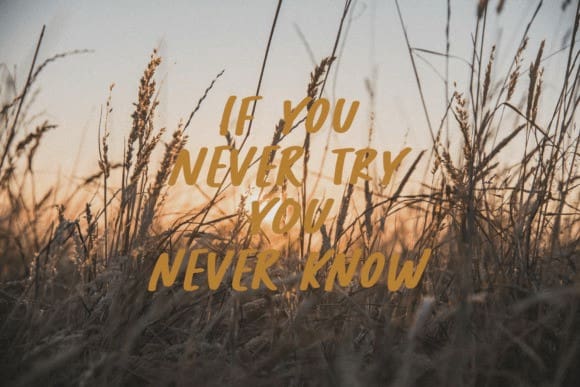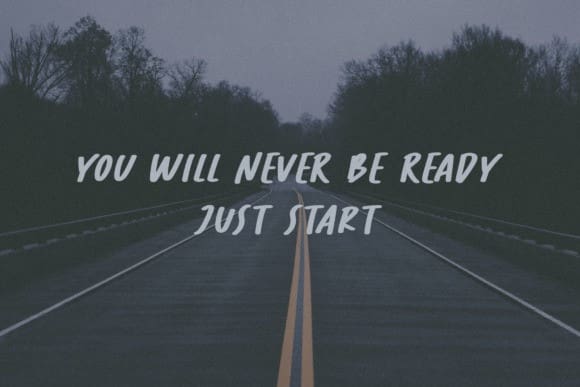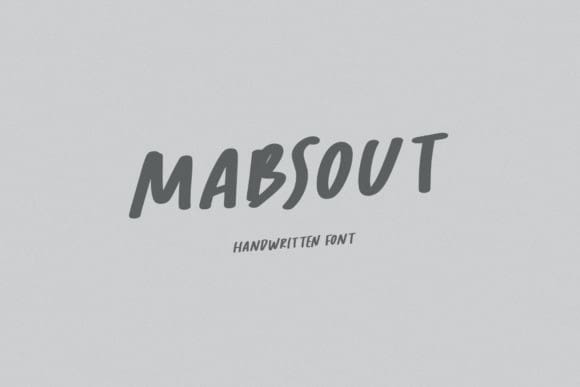
Mabsout Font
Mabsout Font: An all-caps handwritten font that exudes a distinctive style and expression that is sure to grab attention. Crafted with the intention of grabbing attention, this font has become an ideal choice for a variety of visual mediums, including poster designs, flyers, and social media content. The uniqueness and boldness inherent in the characters empower Mabsout to infuse your creative endeavors with a personal touch, resulting in a resonant result—a visually appealing and distinctive expression that is unmistakably unique.